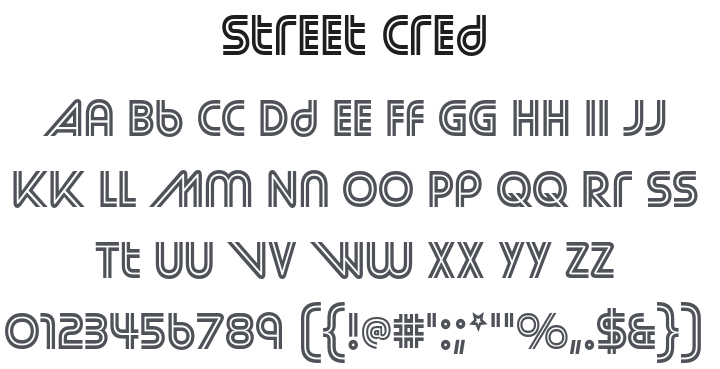
Street Cred Font
About Street Cred
Street Cred is a bold geometric headline typeface with twin parallel stripes running through every letterform — clean, reductive shapes given a distinctive 1970s swagger by those dual stripe cutouts. Its unconventional attitude sits somewhere between disco-era signage and urban cool. Perfect for retro branding, music posters, streetwear graphics, urban editorial headlines, and any design needing funky, confident 70s-inflected personality.